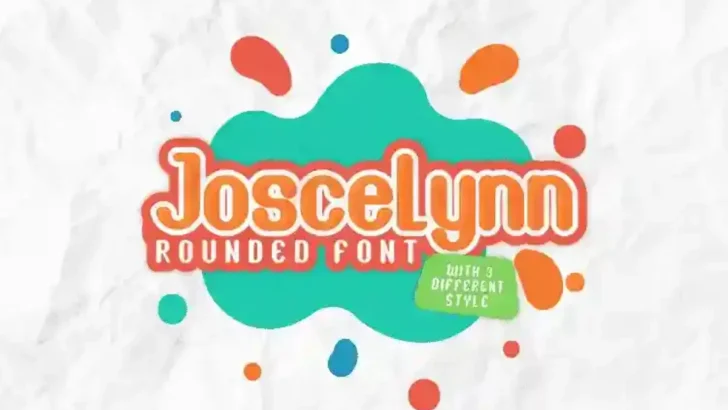
Joscelynn Fun Comic Fonts
Joscelynn is a fun comic unusual non formal typeface. It has new unique style glyph . It has a fresh, elegant, natural and stylish glyphs